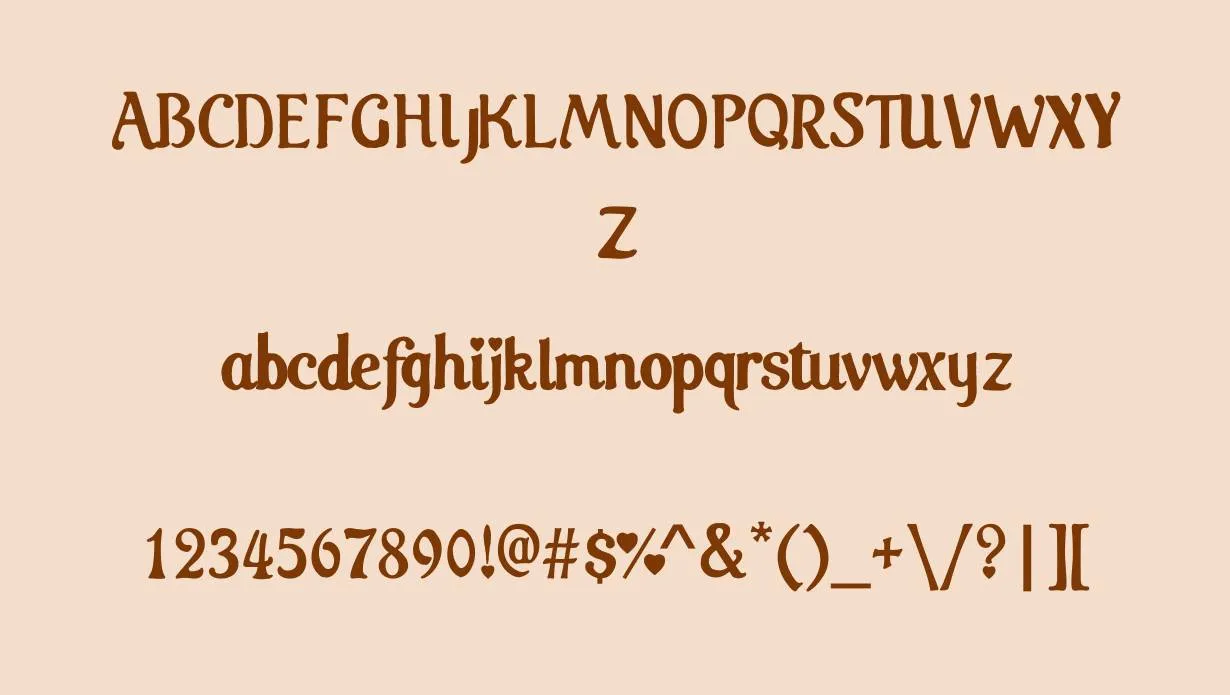
The Care Bear Family Font is a font filled with love and nostalgia, evoking memories of childhood cuddles.
Its playful characters are like a joyful hug from your favorite Care Bear, making it perfect for crafting nostalgic graphics in Adobe Photoshop, adding a playful and cheerful touch to web design with CSS, or creating documents that radiate warmth in MS Word. This font effortlessly brings a sense of comfort and happiness.